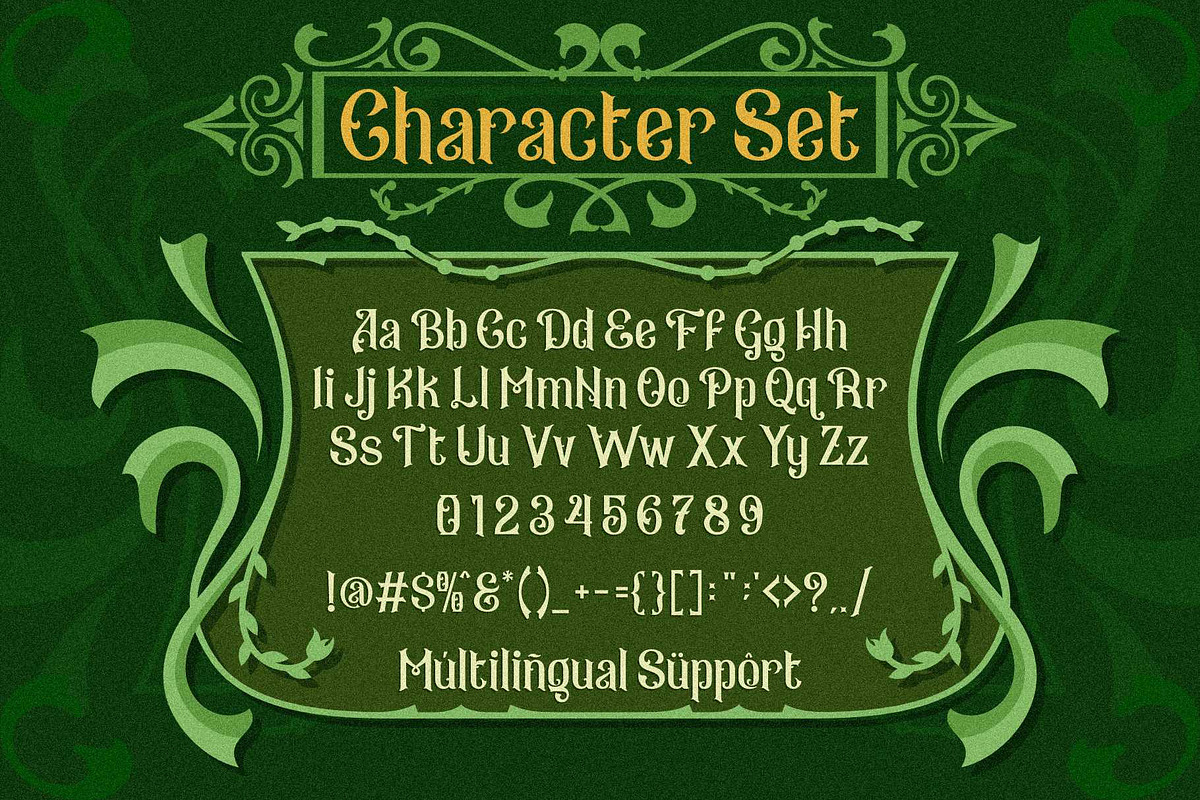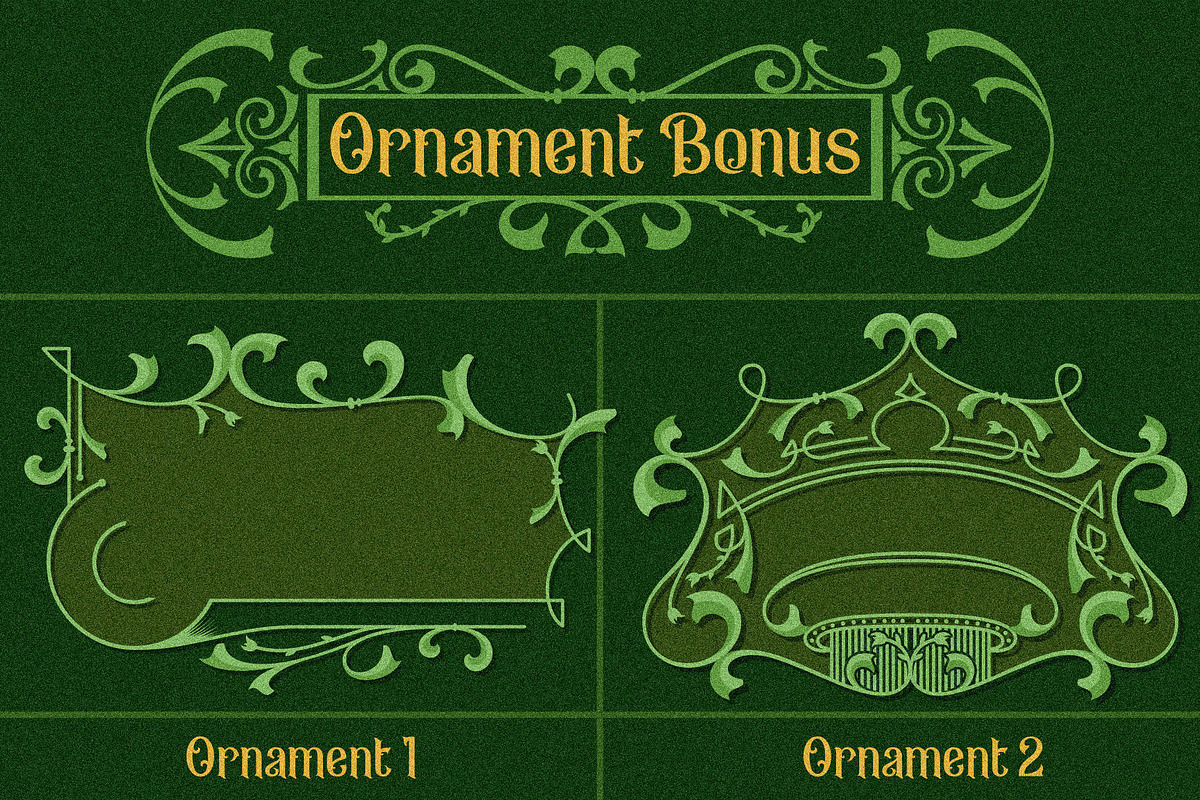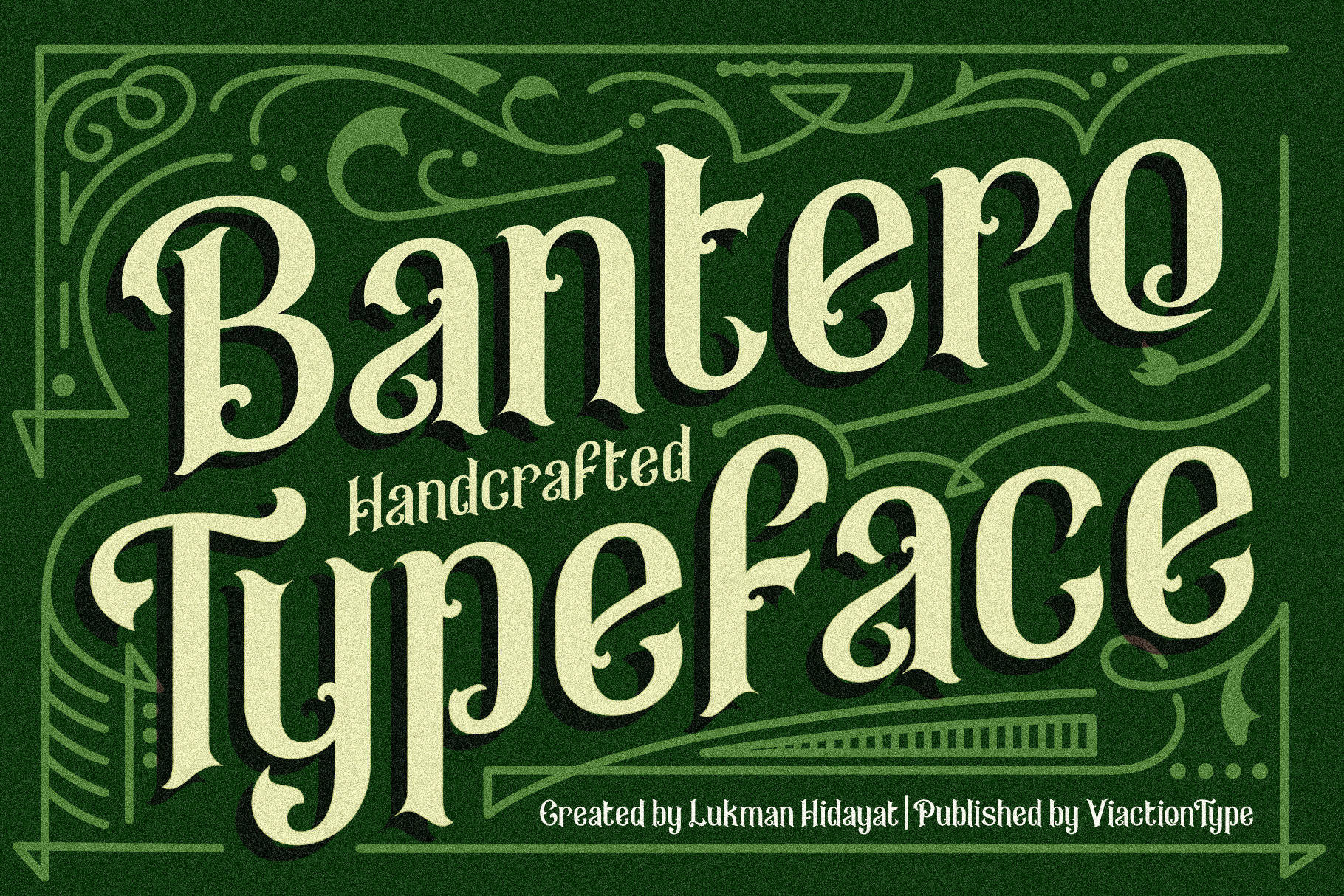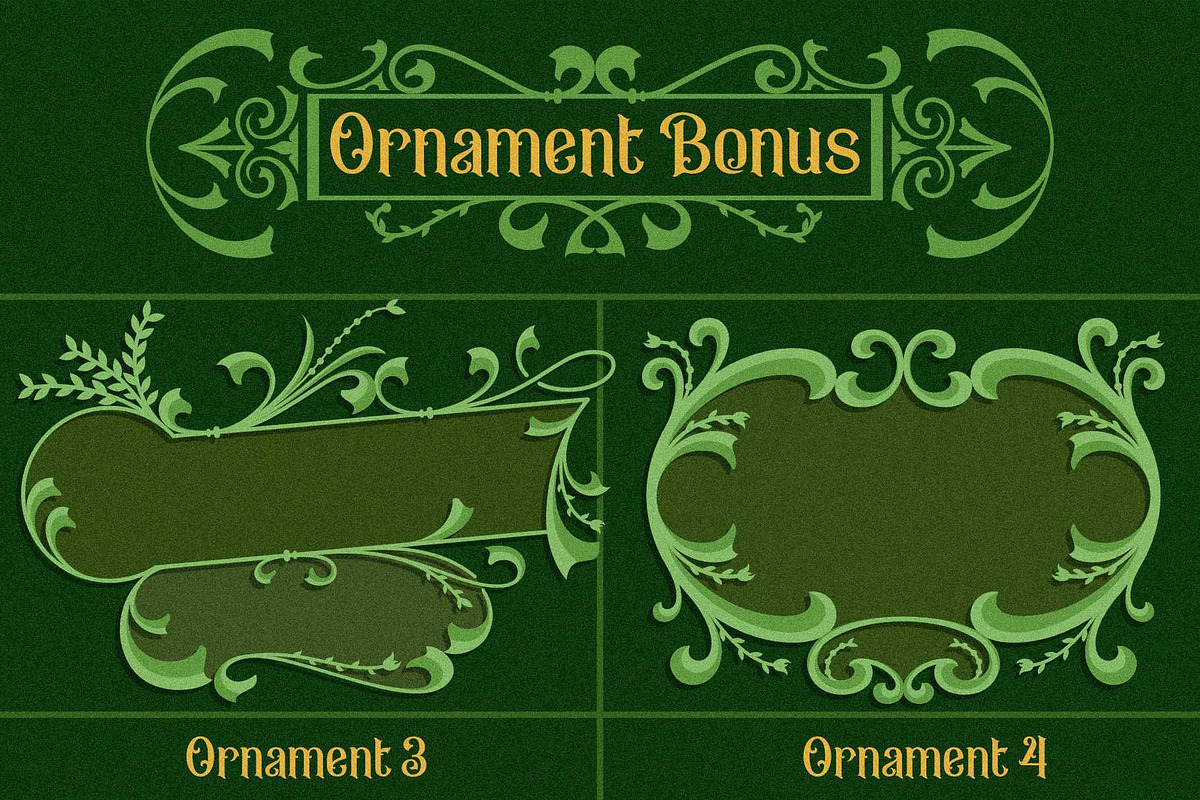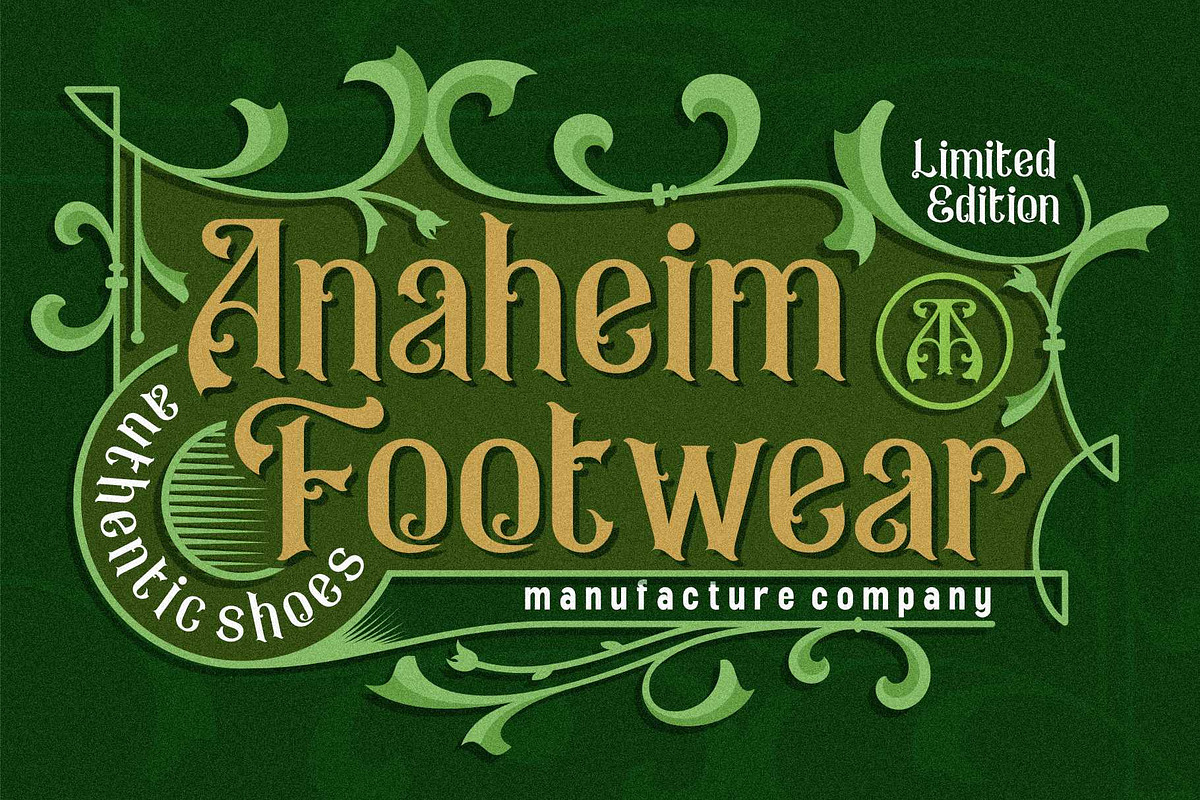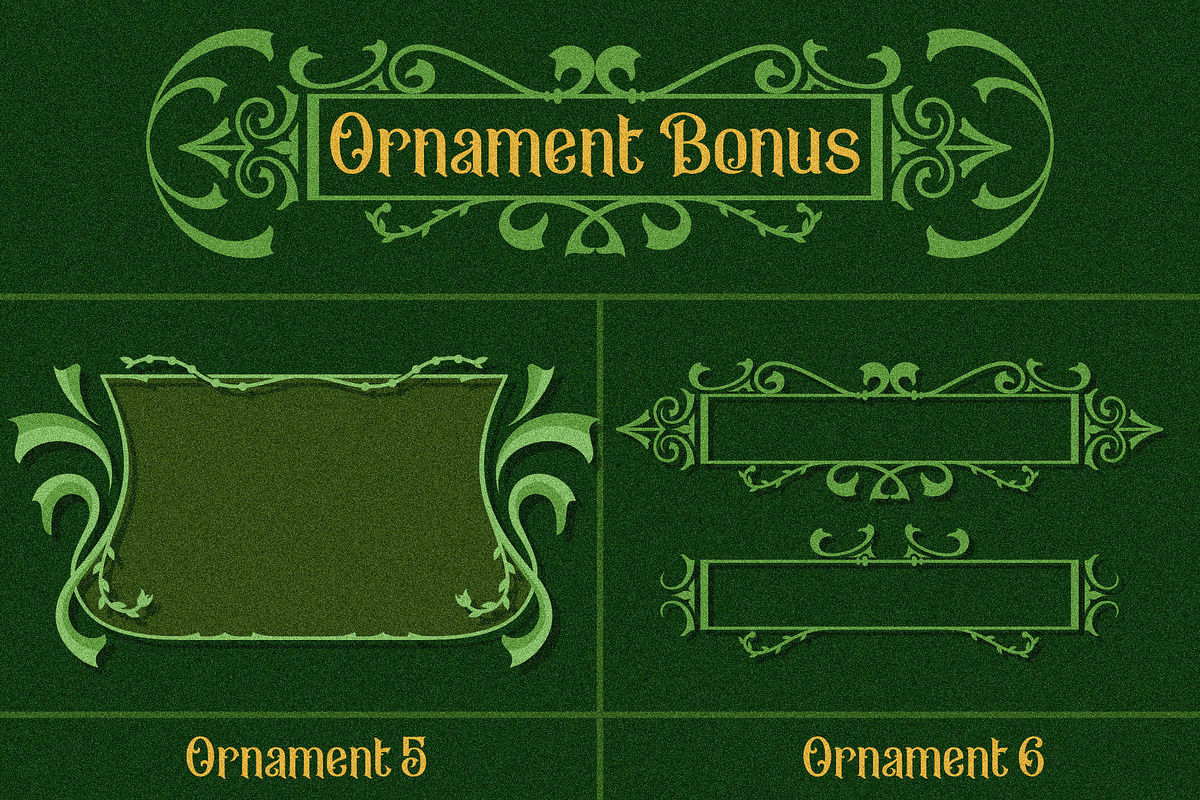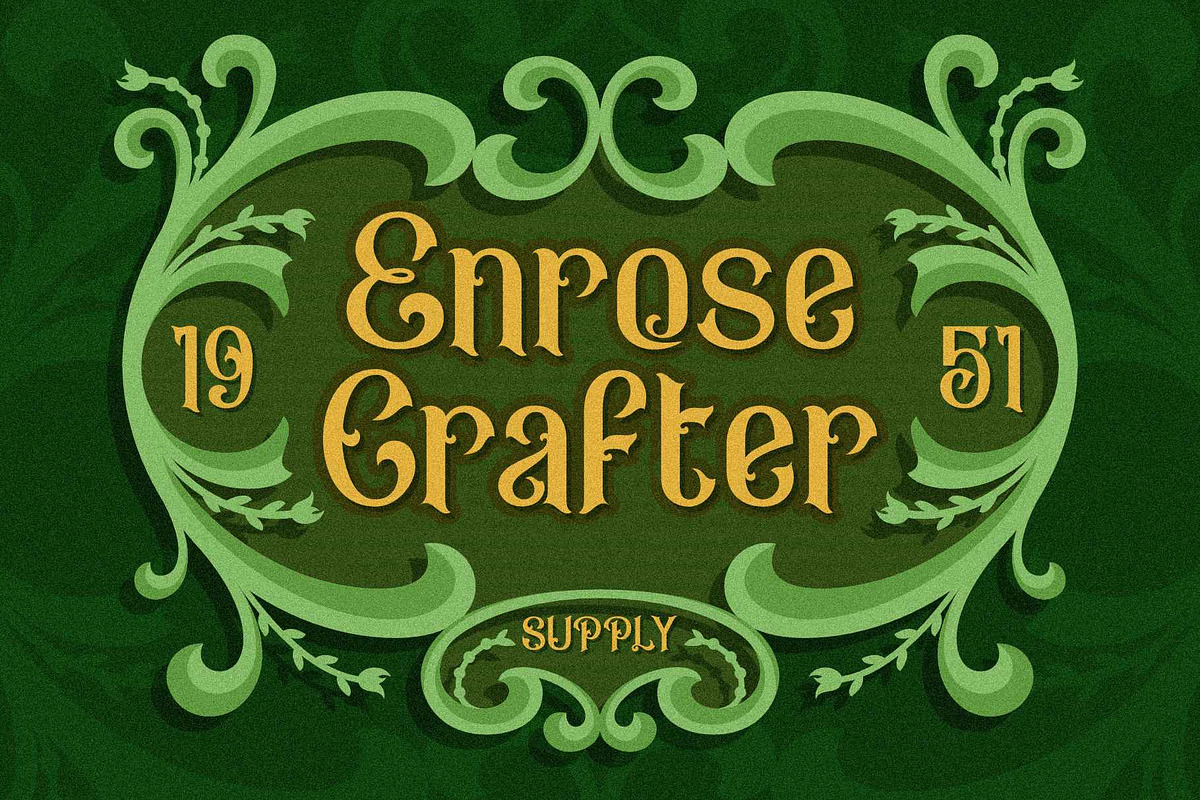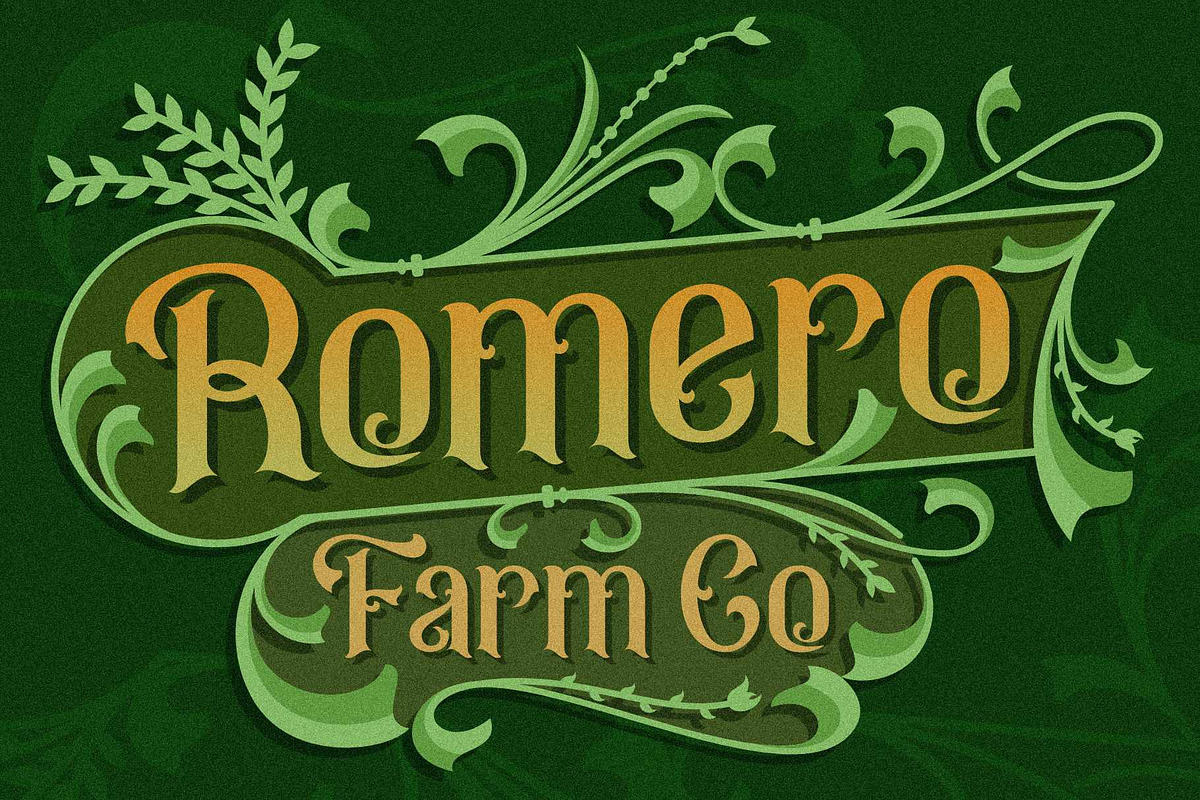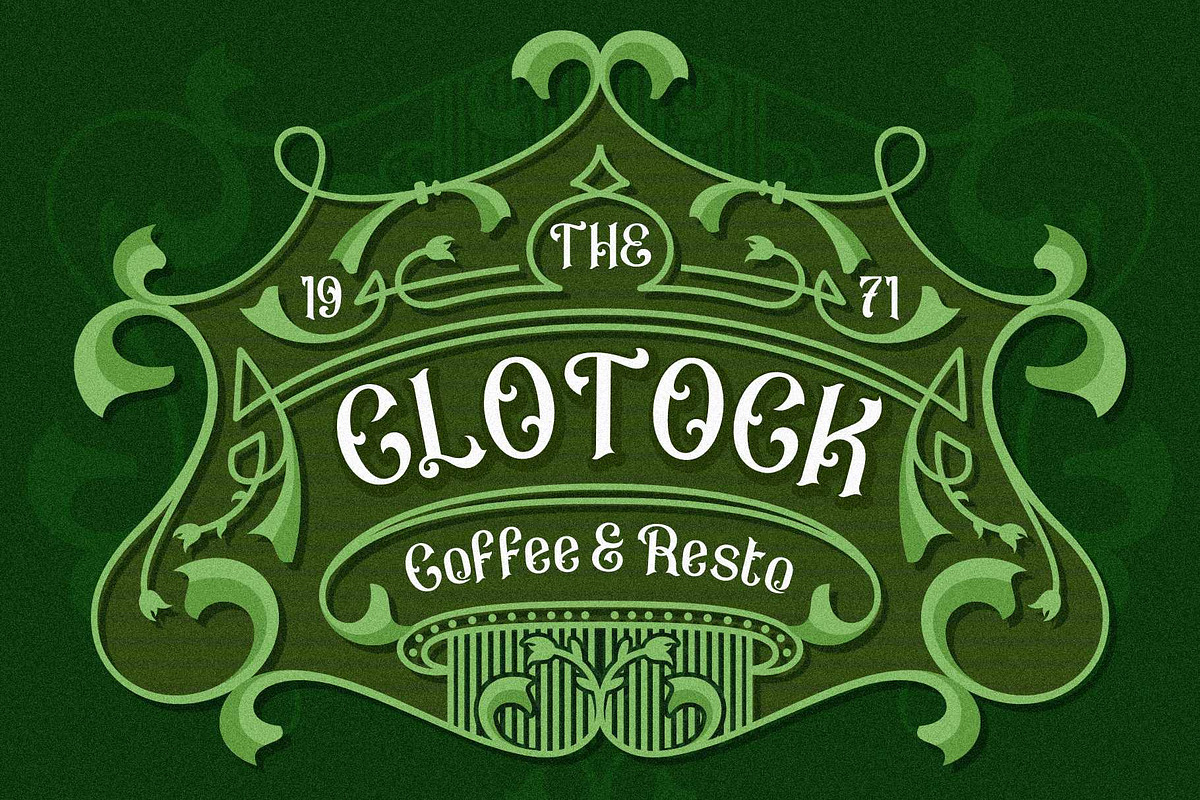
VT Bantero Typeface – Vintage Font
Introducing "Bantero" – a captivating vintage font inspired by the opulence and charm of the Victorian era. Crafted with meticulous attention to detail, Bantero exudes elegance and nostalgia, making it the perfect choice for projects seeking to evoke a sense of timeless sophistication.
With its ornate serifs and graceful curves, Bantero lends a touch of old-world charm to any design endeavor. Whether you're creating branding materials, invitations, posters, or signage, this font effortlessly adds a dash of vintage flair that commands attention and admiration.
But wait, there's more! As a bonus, we're including a stunning decorative vintage logo to complement your Bantero font usage. This intricate logo embodies the essence of vintage aesthetics, featuring intricate flourishes and classic motifs that are sure to elevate your design to new heights.
Unlock the allure of the past with Bantero and its bonus vintage logo. Embrace the nostalgia of the Victorian era while infusing your projects with a touch of timeless elegance. Get ready to captivate your audience and leave a lasting impression with this exquisite font and accompanying logo.
Upgrade your design game today with Bantero – where vintage charm meets modern sophistication. Experience the magic of the past brought to life in every stroke and curve.
Font features include:
- Punctuation & Symbol
- Include 7 bonus ornament.